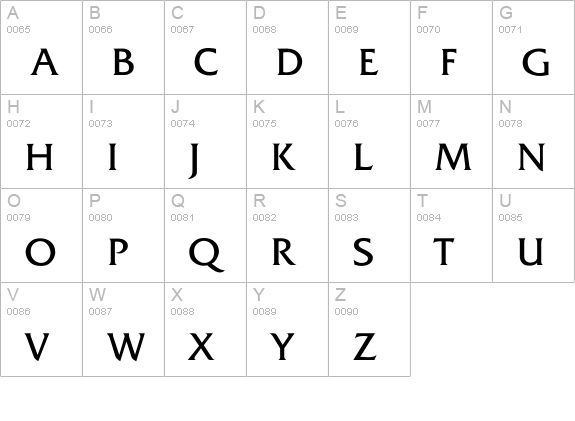
FritzQuadrata Font Details
FritzQuadrata font is a visually striking typeface that exudes elegance and sophistication. Its sharp, geometric letterforms are meticulously crafted, making it perfect for various design projects. The clean lines and balanced proportions give FritzQuadrata a timeless appeal, making it suitable for both print and digital applications. What sets FritzQuadrata font apart is its versatility and versatility. It effortlessly combines classic aesthetics with a modern edge, making it an ideal choice for branding, advertising, editorial design, and more. Whether you are working on a logo, a poster, or a website, FritzQuadrata font will undoubtedly elevate your design with its distinctive charm. One of the best things about FritzQuadrata font is that it is free! Yes, you read that right. This remarkable typeface is freely available to download at FontsMarket.com. This means that you can instantly access and use this font for your creative endeavors without having to worry about any licensing fees or restrictions. So, why wait? Take advantage of this incredible opportunity to enhance your designs with FritzQuadrata font. Download it now from FontsMarket.com and let your creativity soar to new heights.